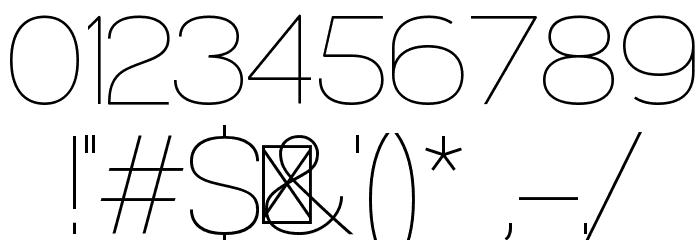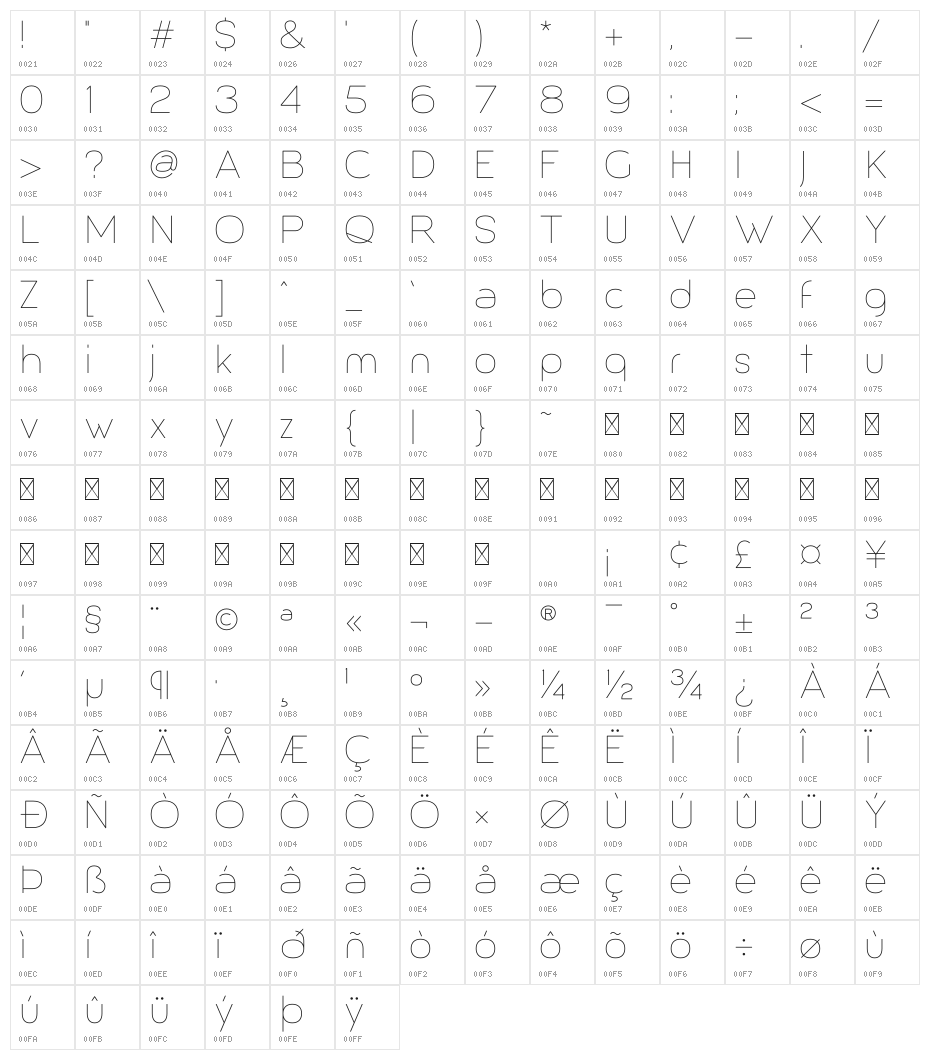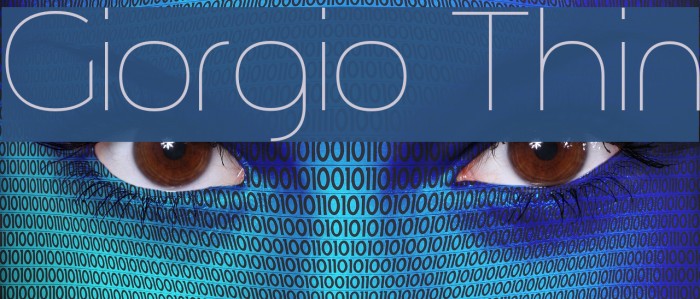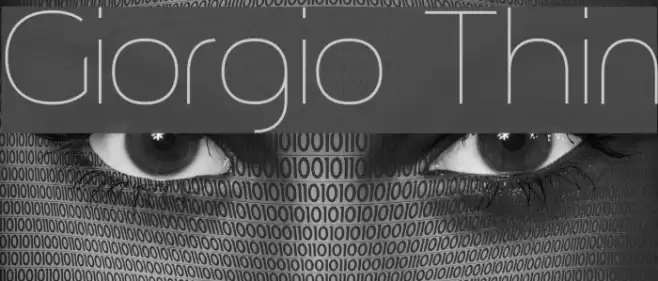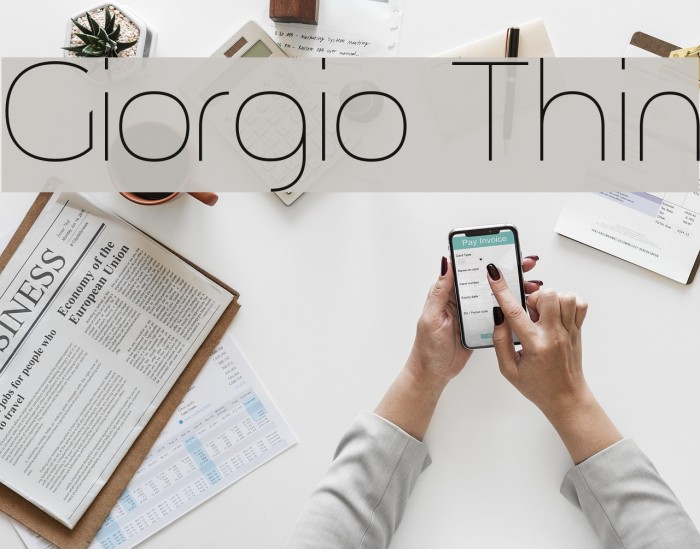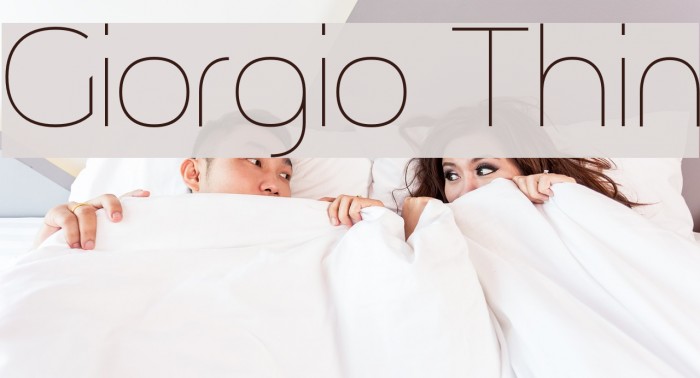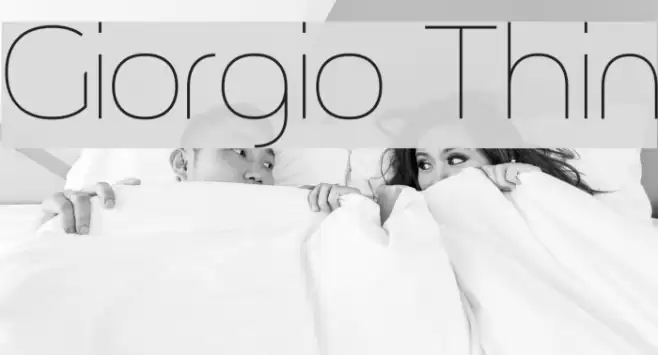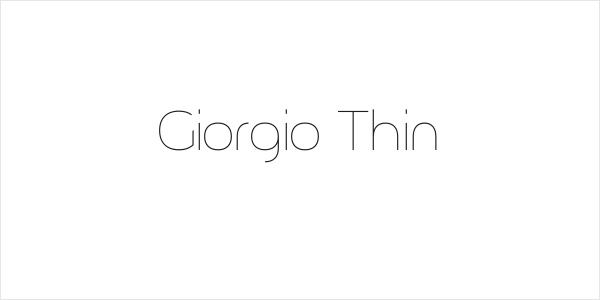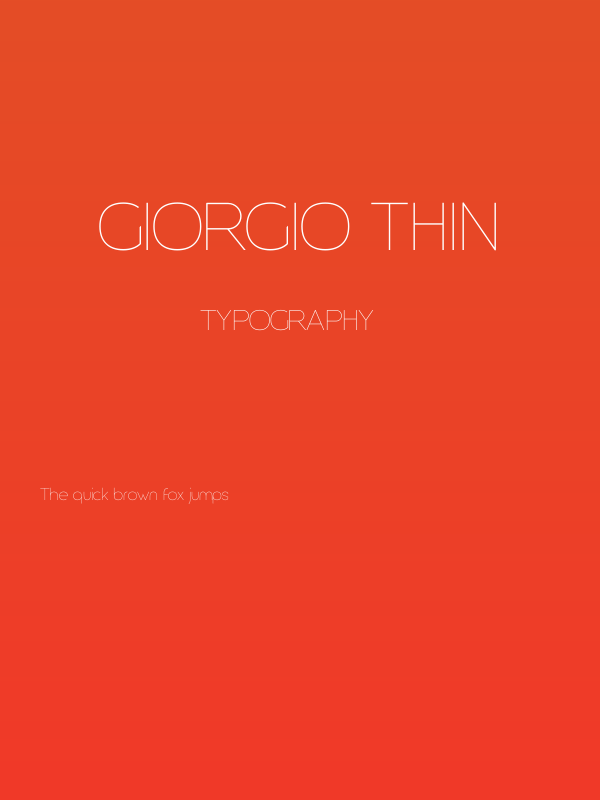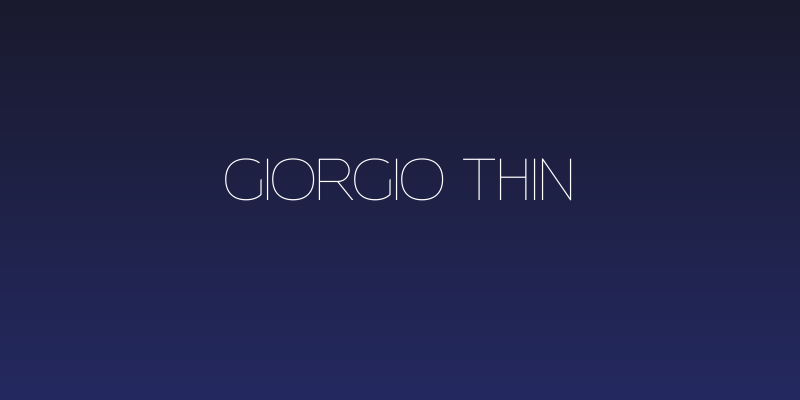
Giorgio Thin Font
Giorgio Thin Description
This font exhibits a sleek and modern design with a thin, elegant line weight. The characters are crafted with a geometric precision, featuring clean lines and a minimalist aesthetic. The uppercase letters maintain a consistent height, while the lowercase letters offer a harmonious balance with slightly rounded edges. The numerals are proportionate and align well with the overall style, enhancing readability. Special characters are distinct yet cohesive with the font's overall look. This typeface is ideal for conveying a sense of sophistication and contemporary style.